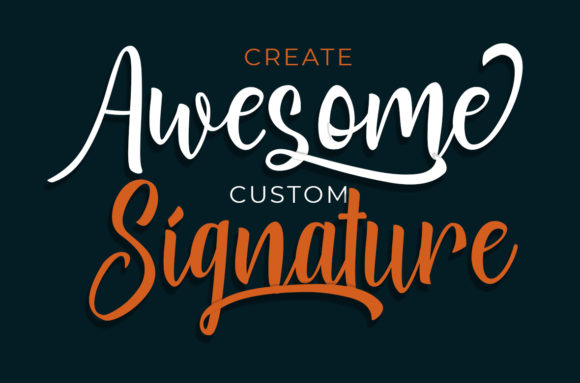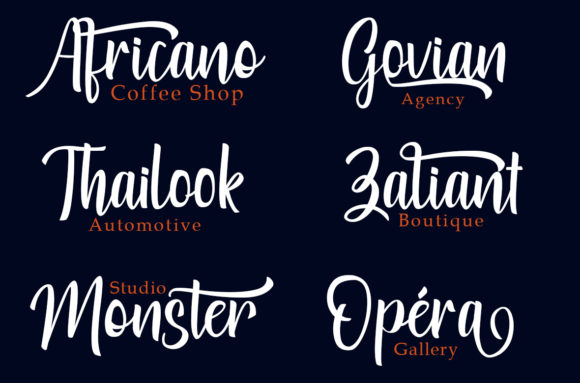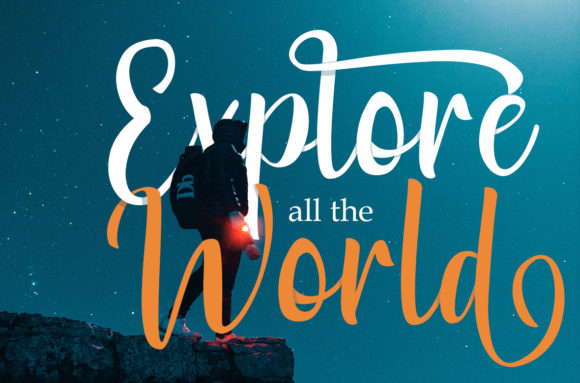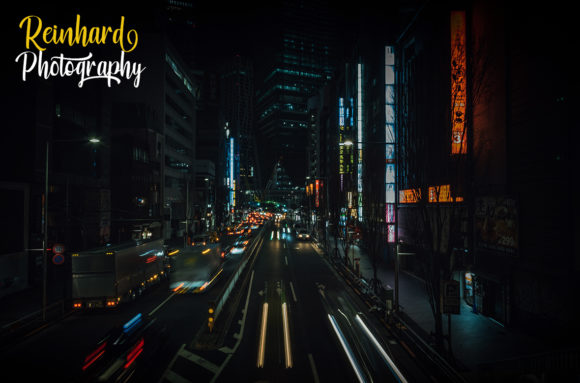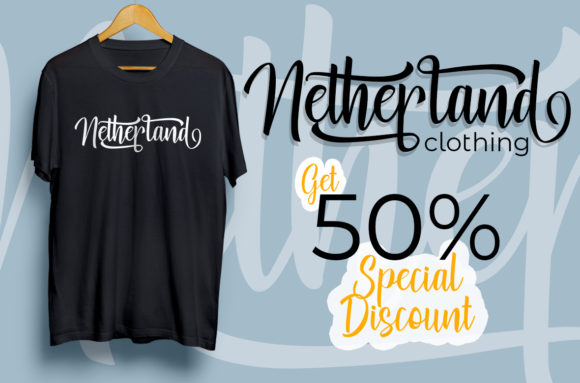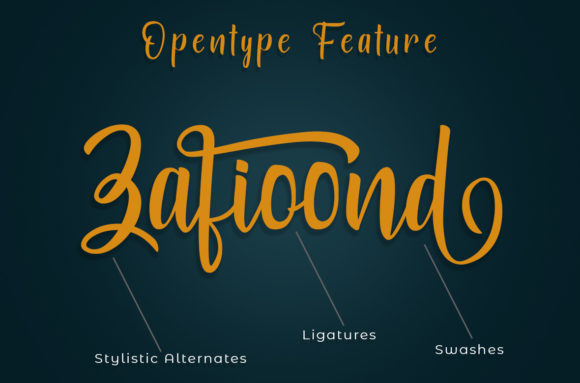
Introduction to Losteria Script Font
Losteria Script is handmade brush font featuring beautiful flowing characters.
It will add a romantic touch to any crafting project .
Key Features of Losteria Script Font
Why Choose Losteria Script Font?
Losteria Script Font offers exceptional quality and versatility, making it a valuable addition to your design toolkit. Whether you’re creating for personal projects or commercial use, Losteria Script Font delivers professional results.